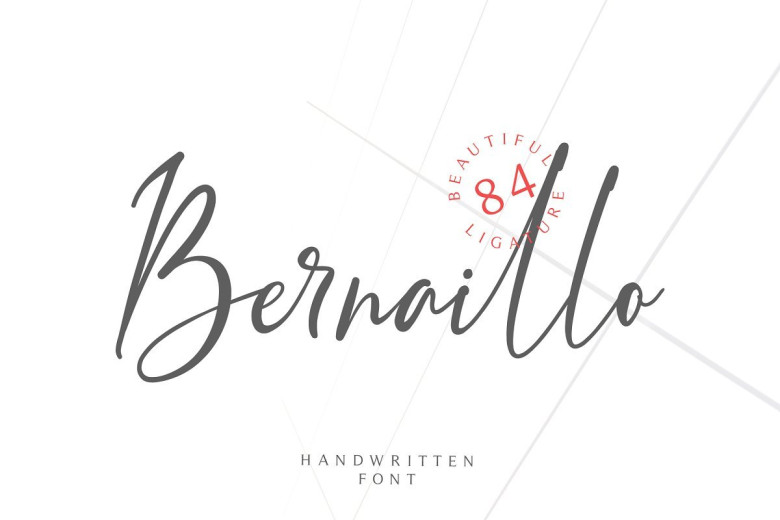
Bernaillo Script Font
Thank you for looking Bernaillo Script Font. It’s a very versatile font that works great in large and small sizes! Bernaillo design and shared by Pen Culture. Bernaillo fonts are fonts that are very suitable for use in a variety of uses. equipped with uppercase letters, lowercase letters, numeral, punctuation, has 84 beautiful ligature, and multilingual support. Bernaillo fonts can be used in various uses such as watermarks, signature and signature logos, business cards, brand names, and many more.